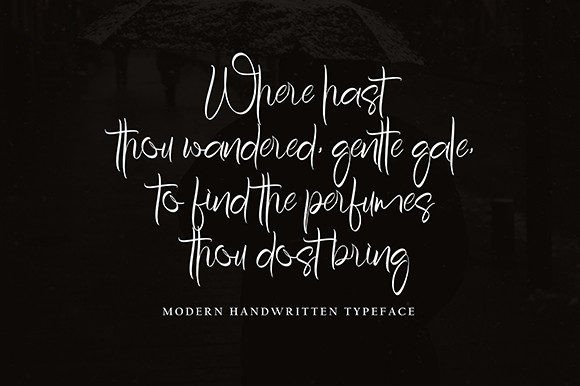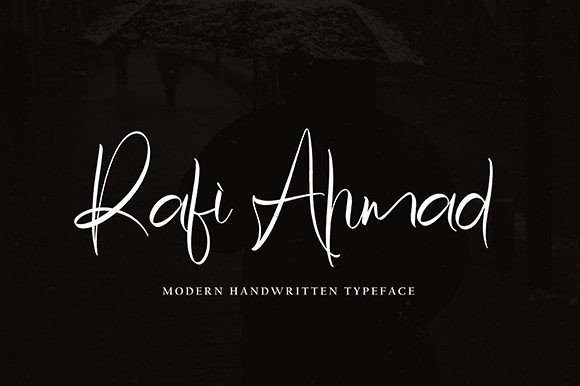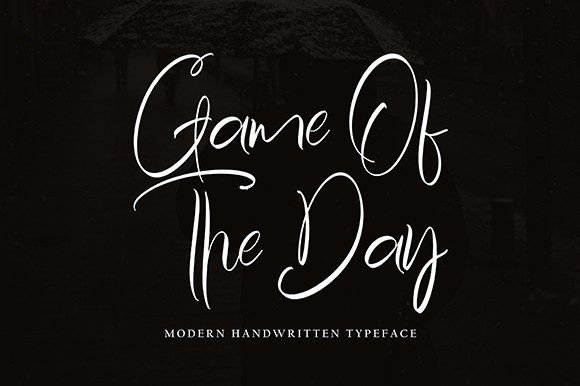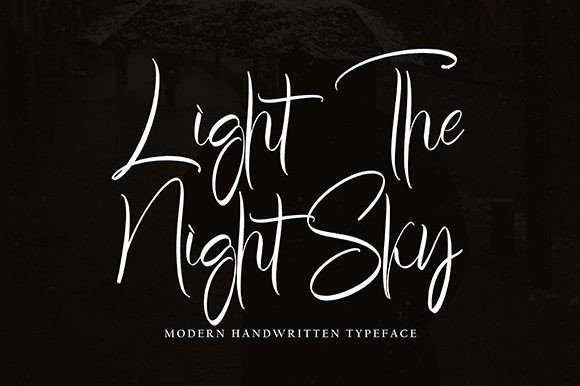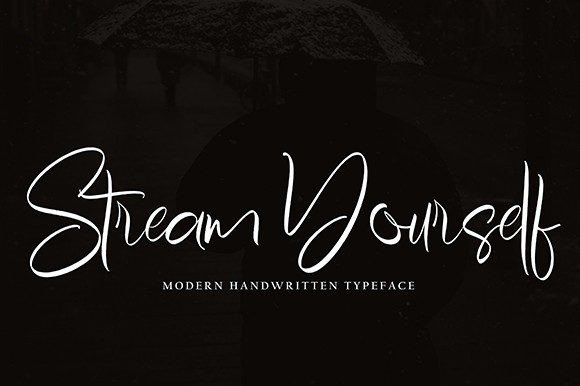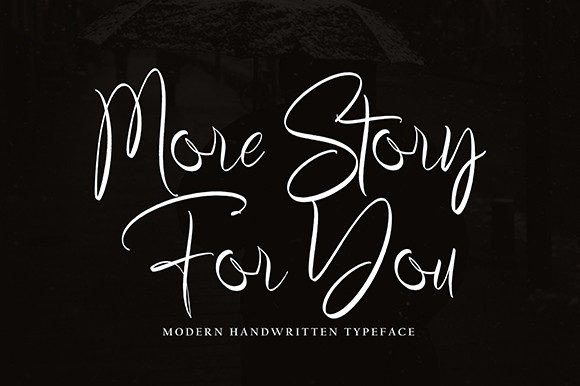
Unleashing Your Inner Artist: The Magic of Bohemian Rapsody Font
Have you ever been browsing through Pinterest or Instagram, and you stumble upon a beautifully designed quote or a stunning logo that makes you stop and wonder, ‘How did they do that?’ That’s exactly what happened to many of us. We see something that sparks our creativity, and before we know it, we’re daydreaming about our next big project.
For those who are looking to add a touch of elegance to their designs, we’ve got just the thing. Introducing the Bohemian Rapsody Font, a magical script font that will transform your creative ideas into a true work of art. Whether you’re a seasoned designer or a DIY enthusiast, this font is a valuable addition to your toolkit. Its unique blend of sophistication and whimsy makes it perfect for Instagram captions, logos, and any other design project that requires a touch of magic.
Bohemian Rhapsody Font Key Features
- Unique Characteristics: The font features a distinctive, hand-drawn style with intricate details and flourishes, reminiscent of the iconic Queen song.
- Font Style: The font is a script font, with a mix of uppercase and lowercase letters, and includes a range of punctuation and special characters.
Bohemian Rhapsody Font Review
As a designer, I was excited to dive into the Bohemian Rhapsody Font, inspired by the iconic Queen song. Here’s my honest review.
- The font’s unique blend of elegance and edginess makes it perfect for designs that require a touch of sophistication and rebellion.
- The extensive character set includes a wide range of symbols, punctuations, and special characters, making it easy to typeset complex text.
- The font’s variable font technology allows for smooth scaling and adaptation to different screen resolutions and devices.
- The font’s complexity and intricacy can make it difficult to read in certain contexts, particularly in small sizes or when used extensively.
- The font’s unique style may not be suitable for all design projects, particularly those requiring a more conservative or traditional look.
The Bohemian Rhapsody Font is a bold and eclectic typeface that’s perfect for designers looking to add a touch of drama and flair to their projects. While it may have some limitations, its unique style and features make it a great addition to any design arsenal.
To get the most out of the Bohemian Rhapsody Font, try using it in combination with bold or italic text to create a sense of drama and emphasis.
Also, experiment with different font sizes and styles to create a unique and eye-catching design.